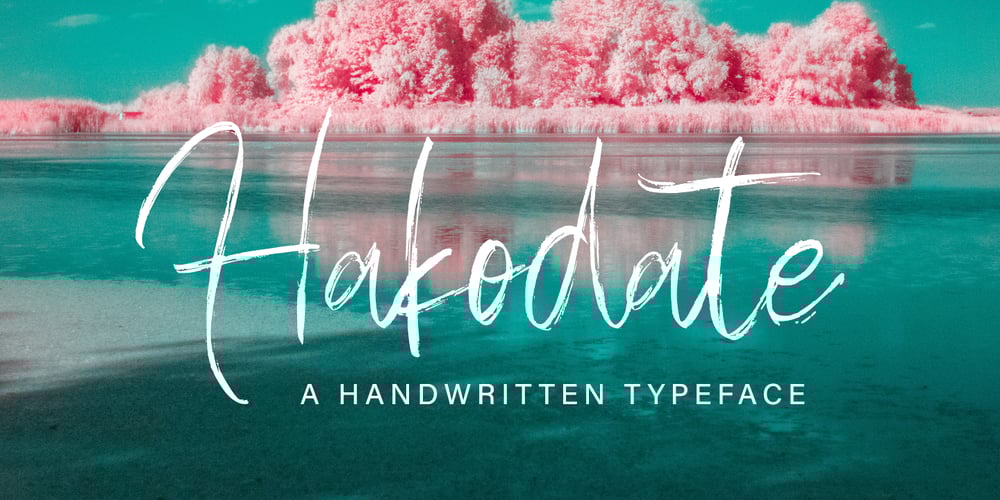
Hakodate
Hakodate font
Hakodate Font Family was designed by Asep Rendi and published by Arendxstudio. Hakodate contains 1 styles and family package options. Hakodate is a very unique and elegant font for you to use in your design project because it adapts to various themes. Hakodate is a font with distinctive handwritten characters and is perfect for branding projects, logos, wedding designs, media posts, advertisements, product packaging, product designs, labels, photography, watermarks, invitations, stationery, and any project that needs a handwritten feel. Features : • Character Set A-Z • Numerals & Punctuations (OpenType Standard) • Accents (Multilingual characters) • Ligature There it is! I really hope you enjoy it – comments and likes are always welcome and accepted. More importantly, don’t hesitate to send a message if you have a problem or question. Now just read this, go there and make it happen!